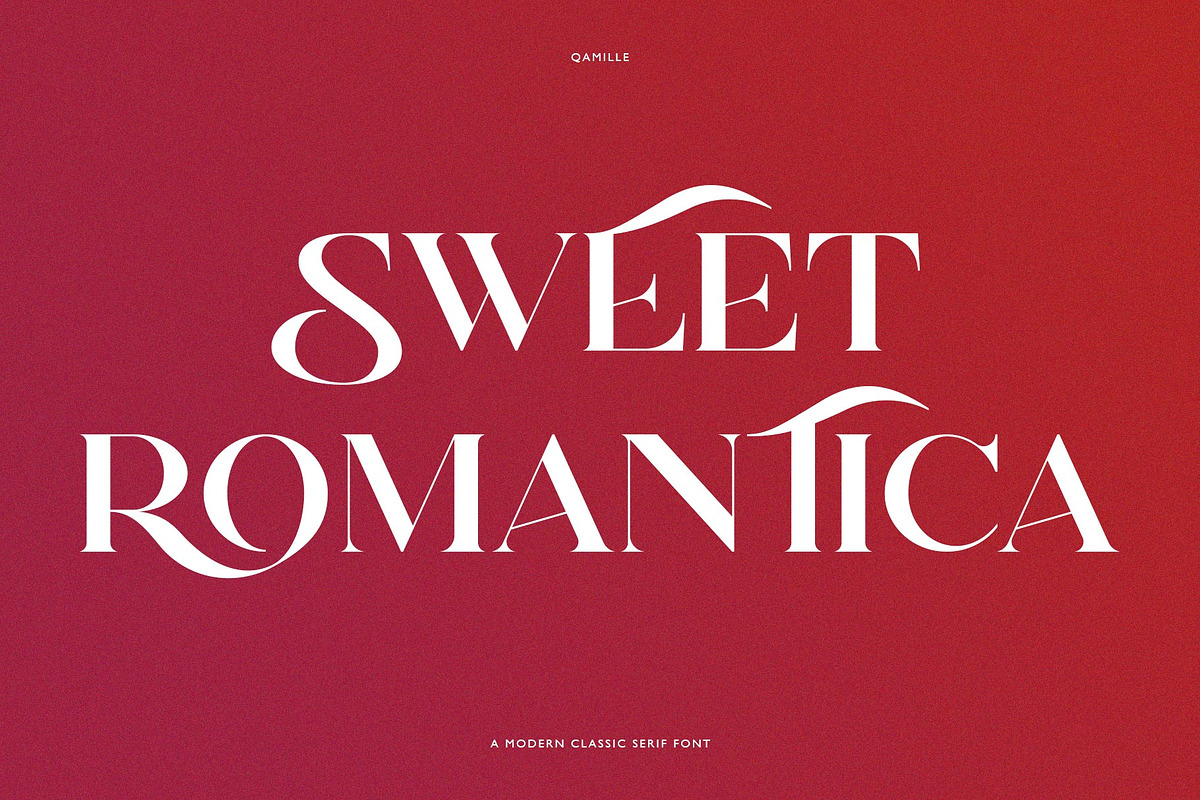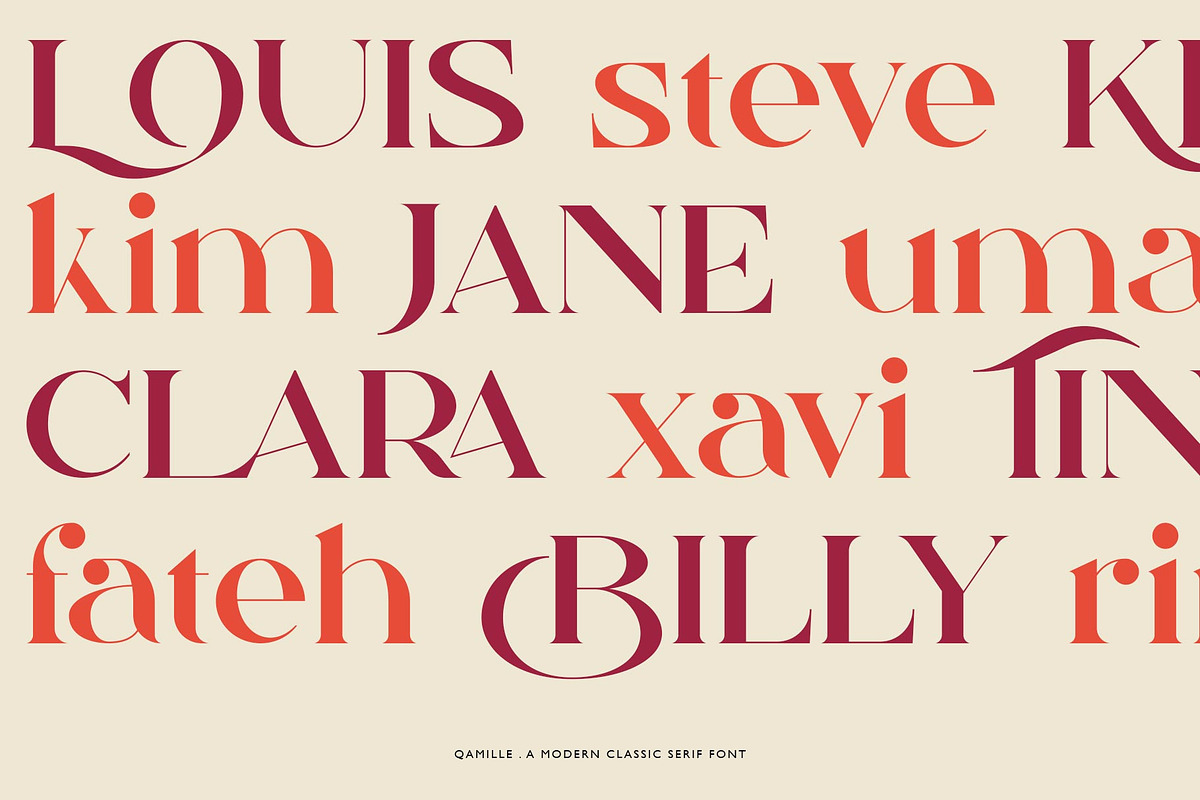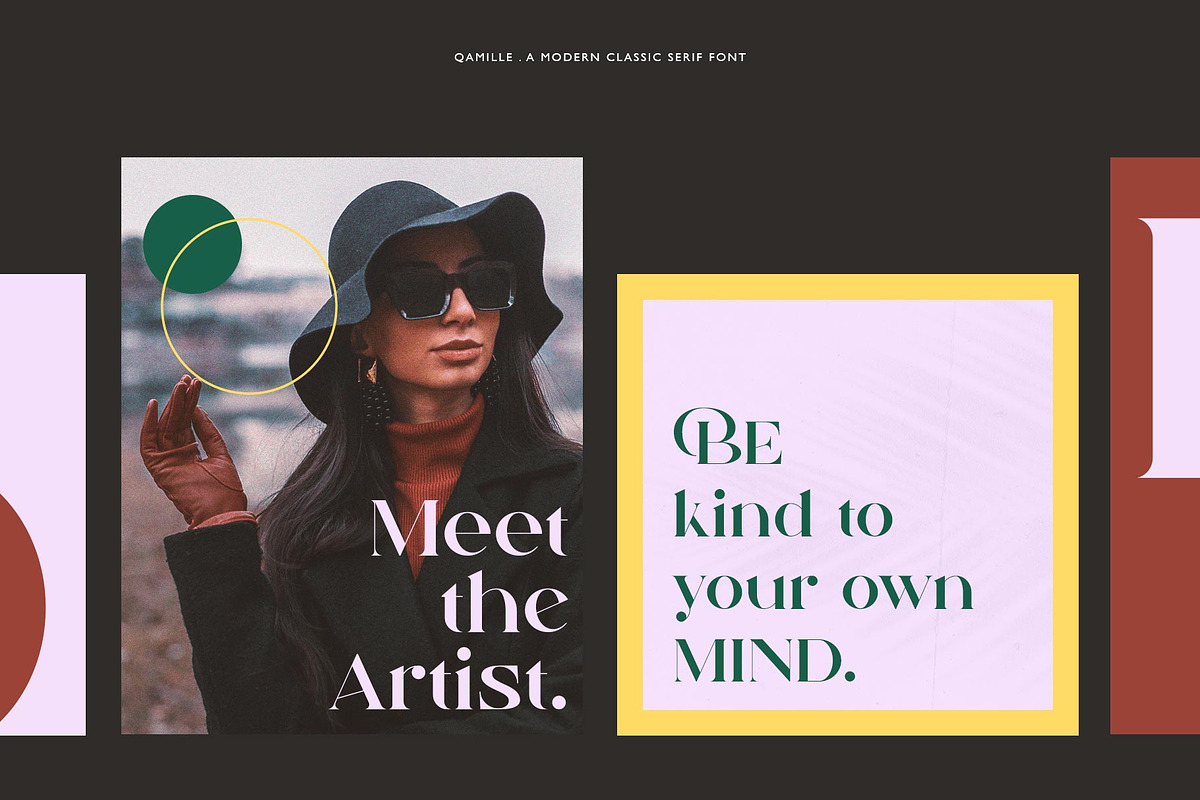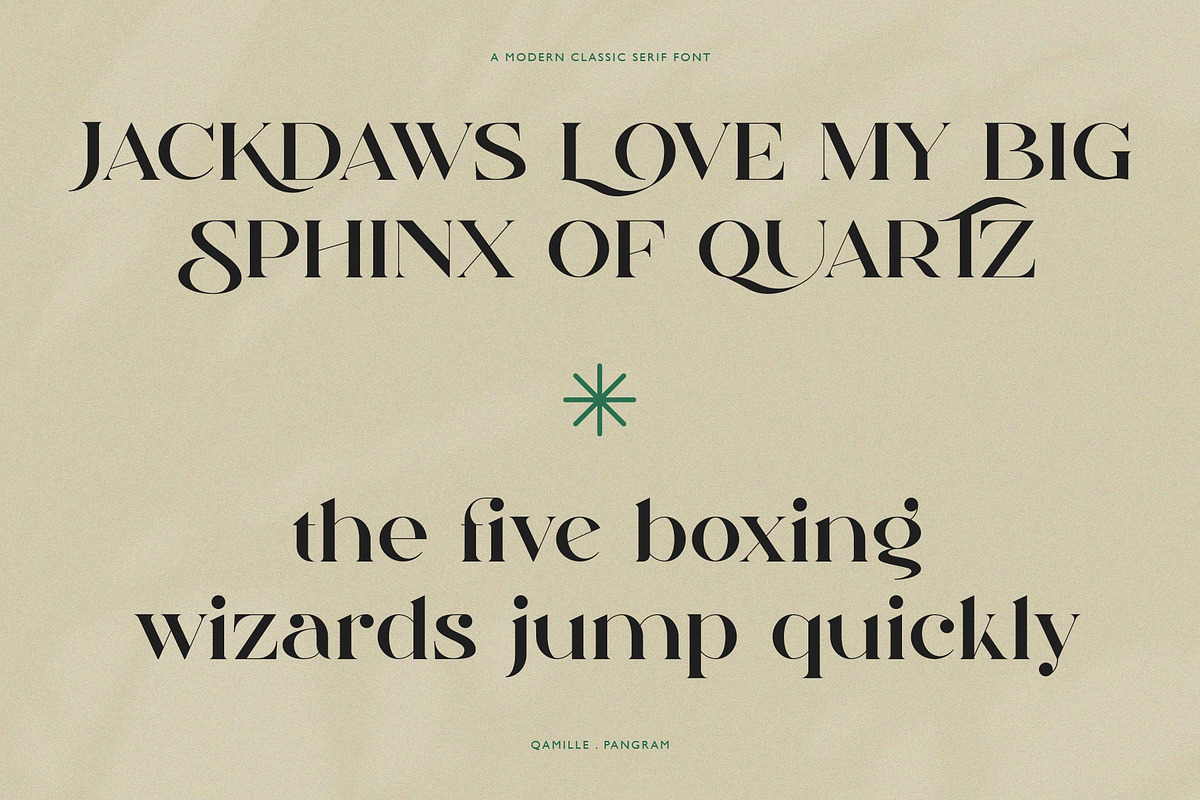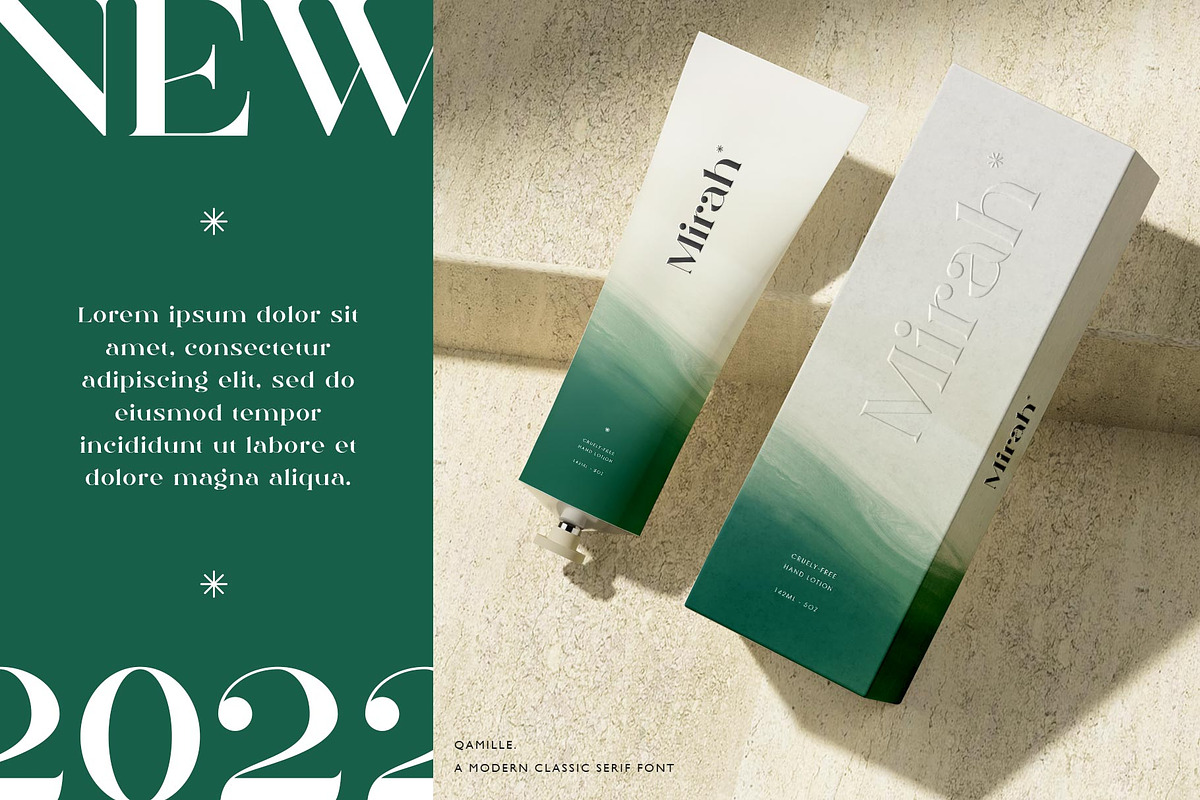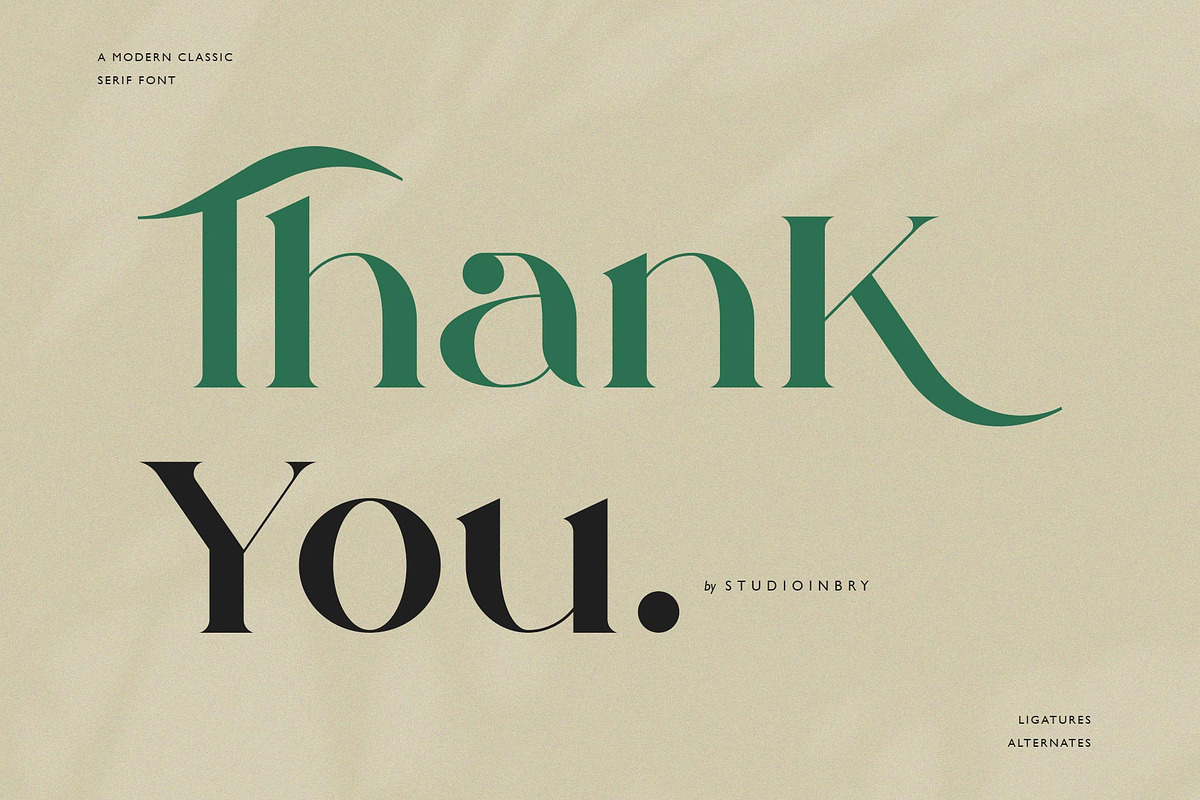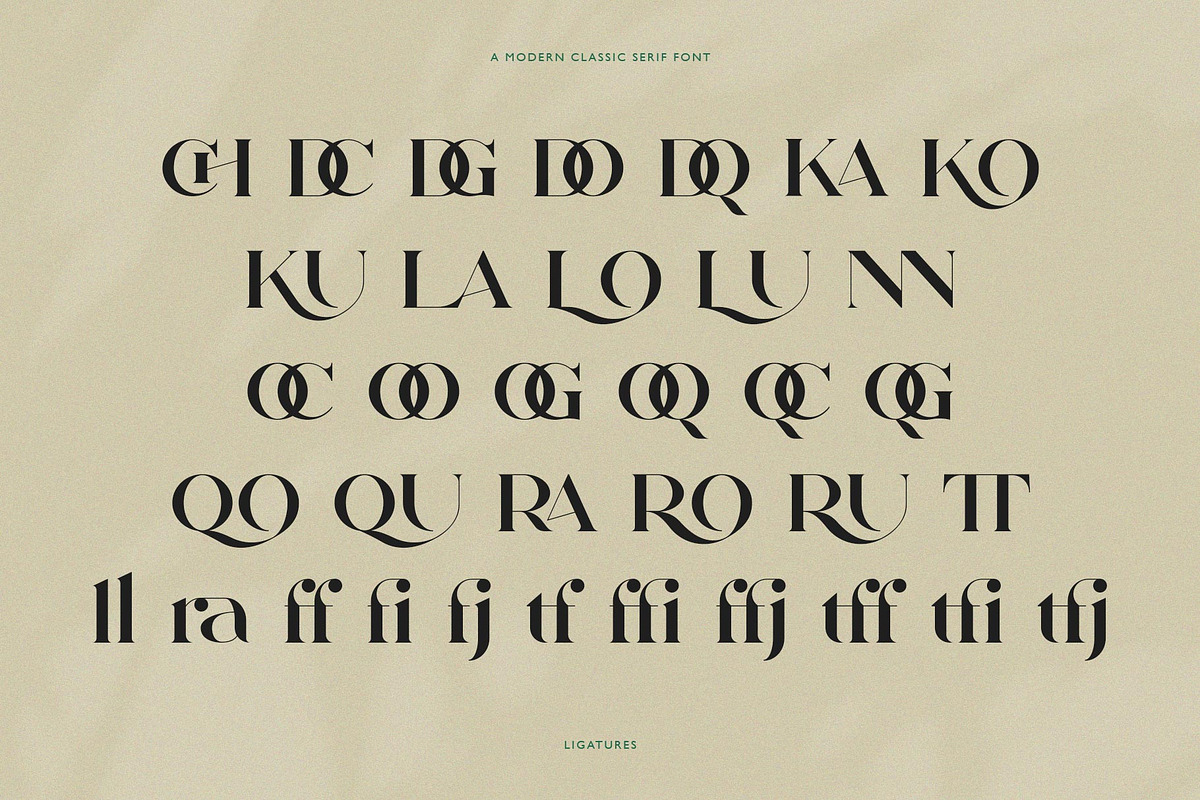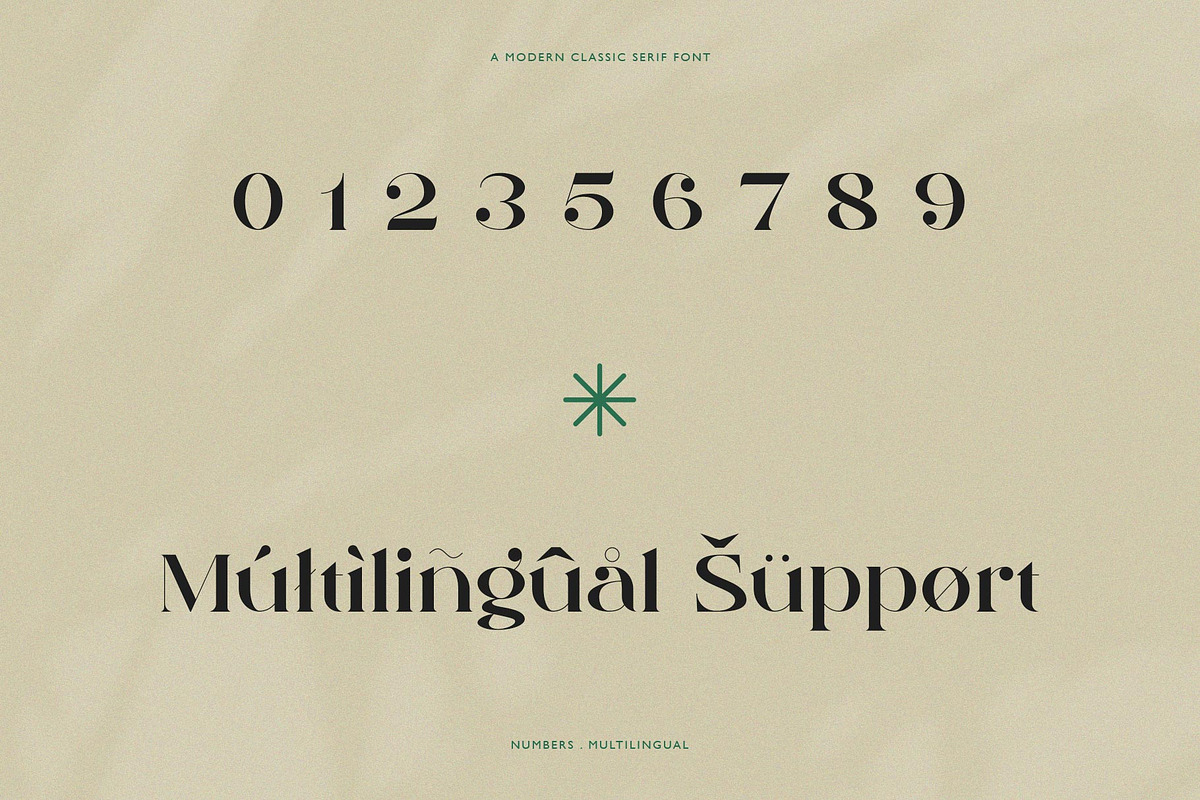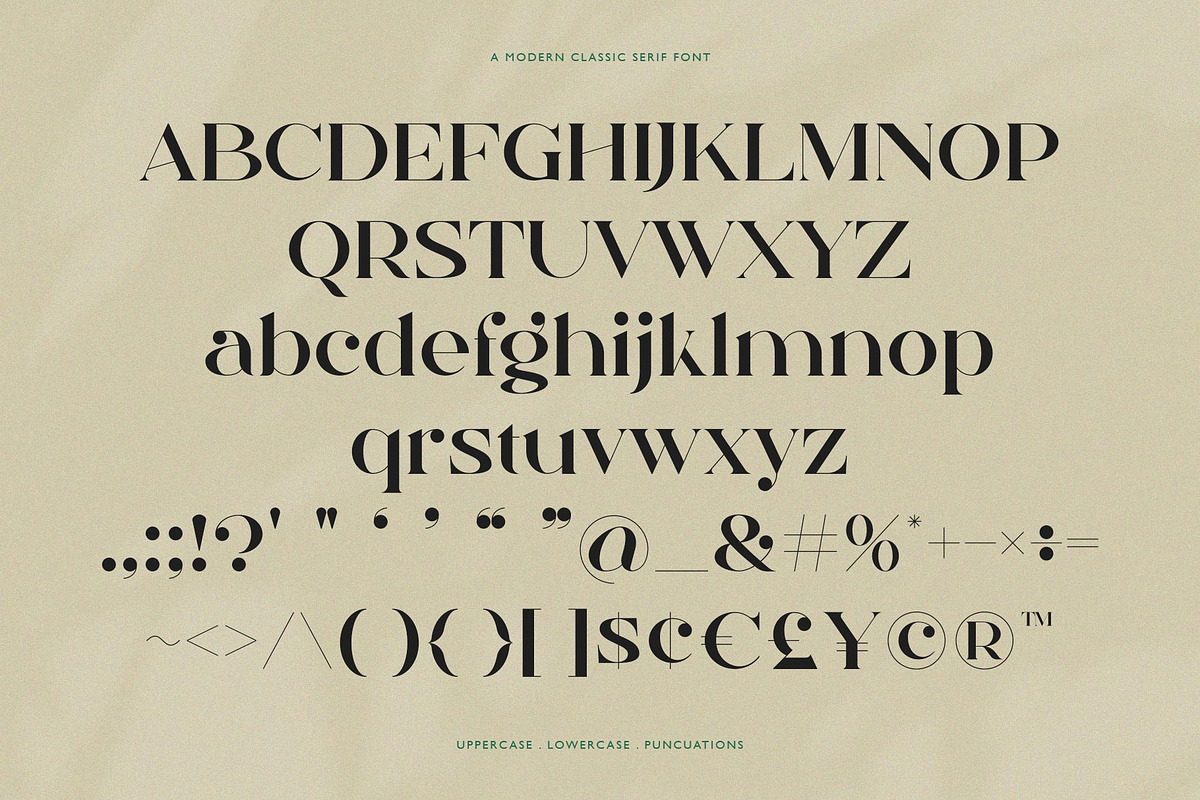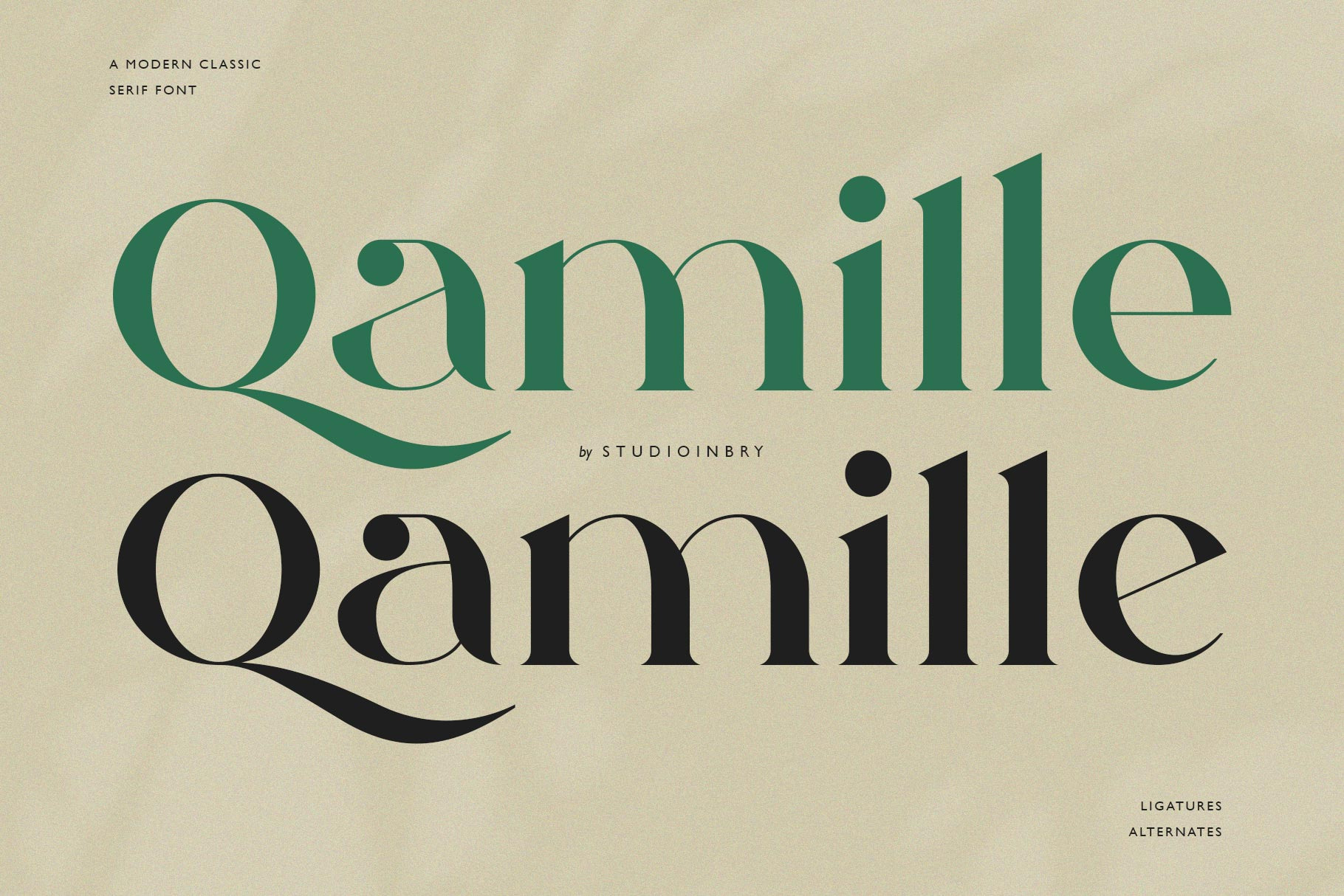
Qamille - Modern Classic Serif Font
Introducing, Qamille. A Modern Classic Serif with some flourish alternates & ligatures that make the font have its own unique personality. You can use it for branding, social media, posters, packaging, & more.
Uppercase, Lowercase, Numbers, Punctuation.
Opentype Features (Alternates & Ligatures).
Multilingual Support.
Elevate your designs with Qamille Font, a sophisticated display font defined by sleek lines and refined curves. Crafted for high-end branding, editorial layouts, and luxury packaging, it delivers an effortless sense of class and exclusivity. What a Beauty!